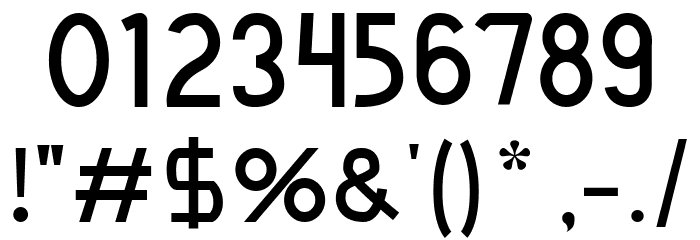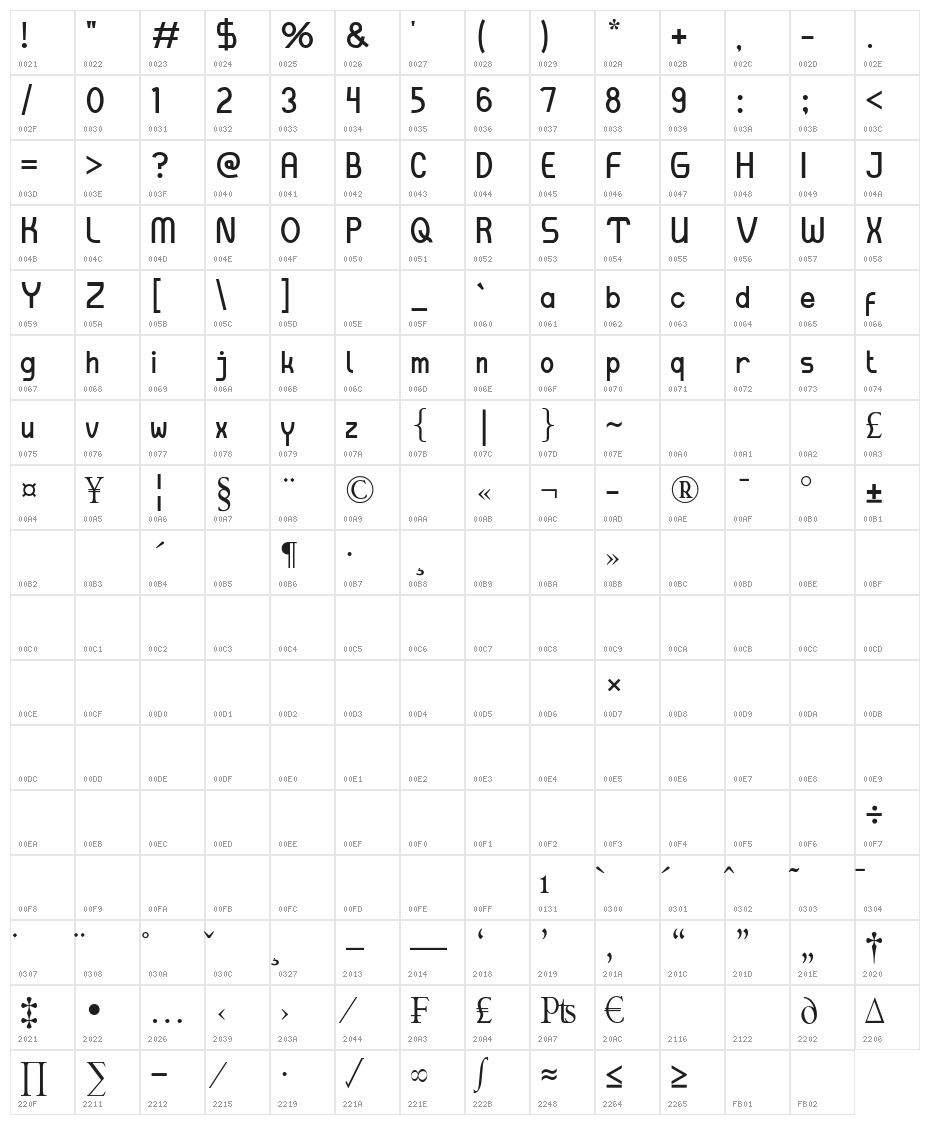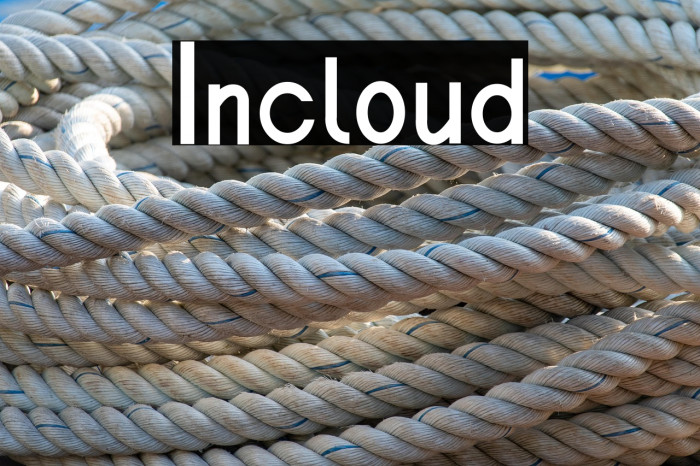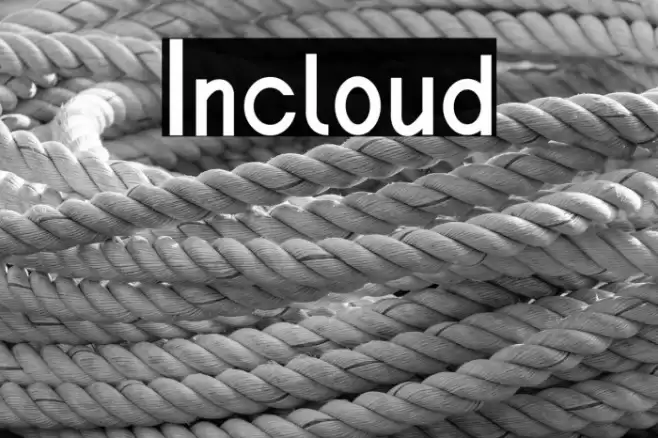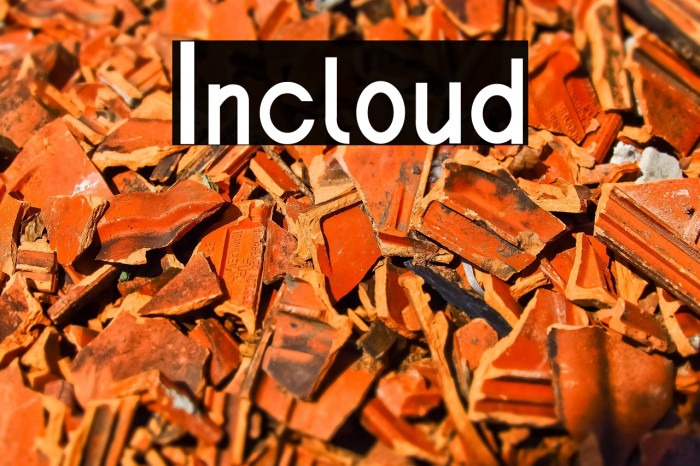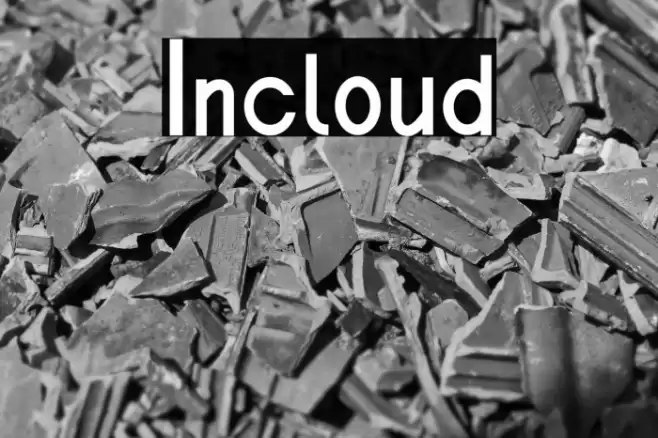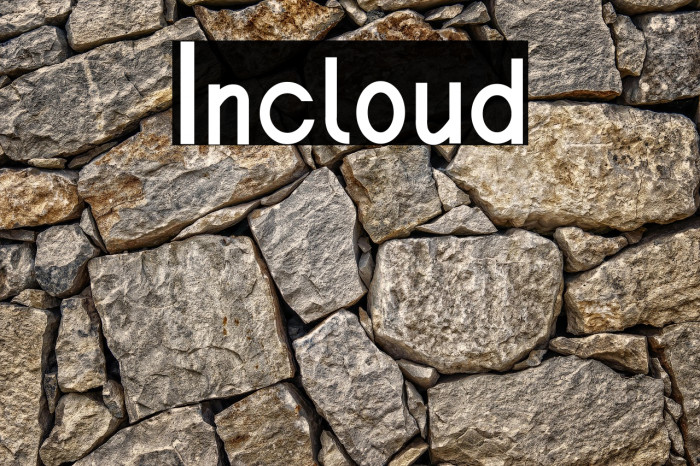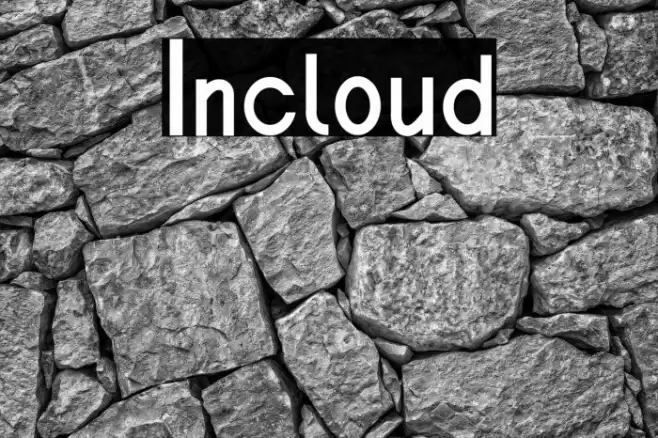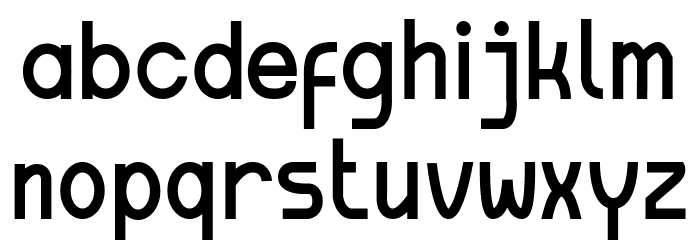
Incloud Font
Incloud Description
This font features a modern and geometric design with rounded edges, giving it a friendly and approachable appearance. The uppercase letters are bold and uniform, while the lowercase letters maintain a consistent height, enhancing readability. The numerals are clear and distinct, matching the overall style of the alphabet. Special characters are well-integrated, maintaining the font's cohesive look. The font's clean lines and balanced proportions make it versatile for various design applications.
| Use Case | Headlines, Logos, Digital Interfaces |
| Proposed Projects | Ideal for branding, advertising, digital interfaces, and signage due to its clarity and modern appeal. |